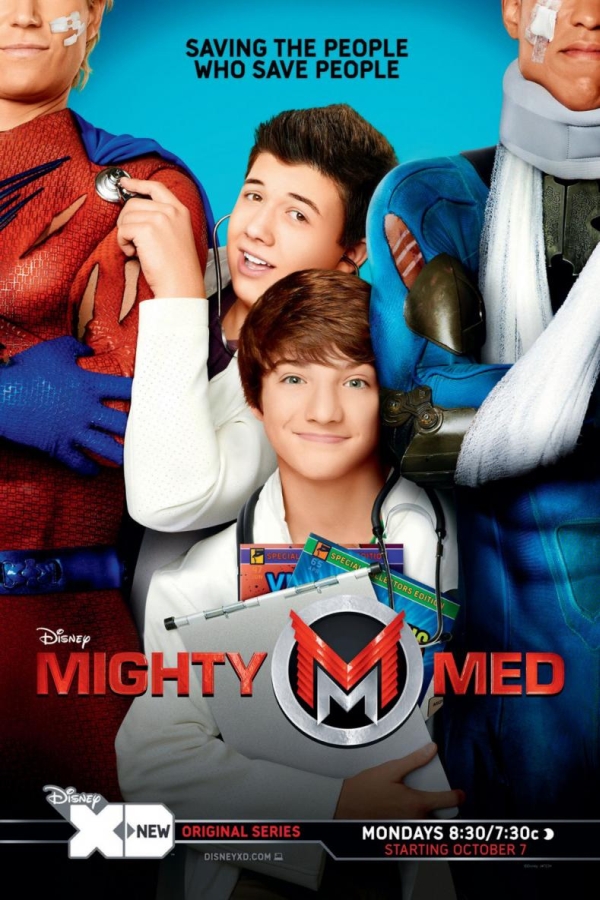
Mighty Med Font
ComedyMighty Med is a superhero comedy TV series that aired on Disney XD from 2013 to 2015. The show follows two teenage best friends who work at a secret hospital for superheroes and must balance their normal lives with their extraordinary jobs.
On the TV show poster, the title font is Eurostile Bold, a sans-serif typeface created by Aldo Novarese in 1962. This font has square-shaped letters with rounded edges that give off a 1950s look and feel, reminiscent of machinery, technology, and interior design of that era.